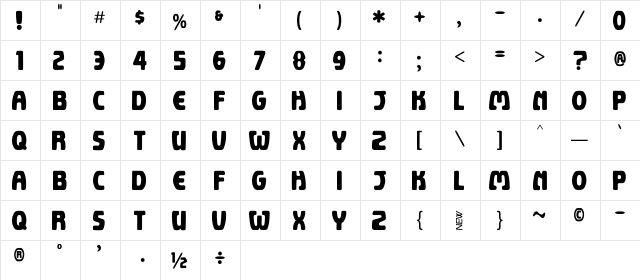
Imagica Regular
Design Context for Imagica Typeface
Imagica offers clean, dependable letterforms without strong stylistic allegiance, making it a practical choice for designers who need flexibility.
Pro Tip: Use Imagica in both headline and body roles to test its range before committing to a single application.